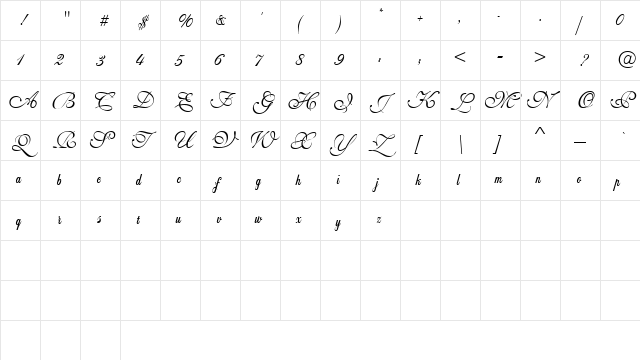
Wedding Script Bail Regular Font Preview
Wedding Script Bail Regular
Design Context for Wedding Script Bail Typeface
Wedding Script Bail flows with the natural rhythm of handwritten lettering, making it ideal for designs that call for warmth and personal expression.